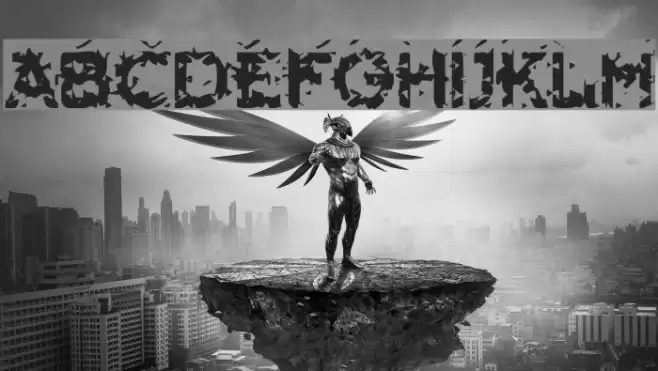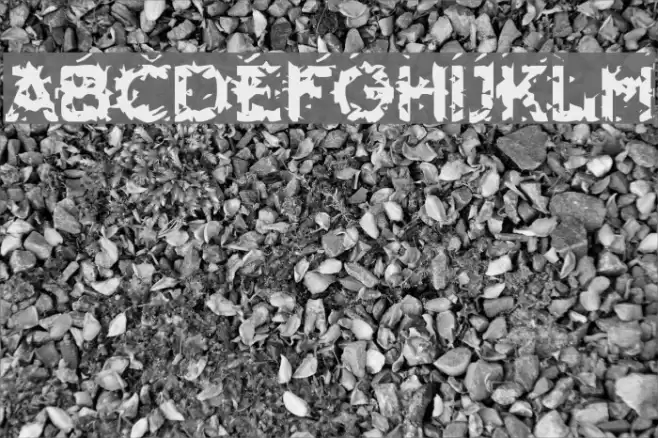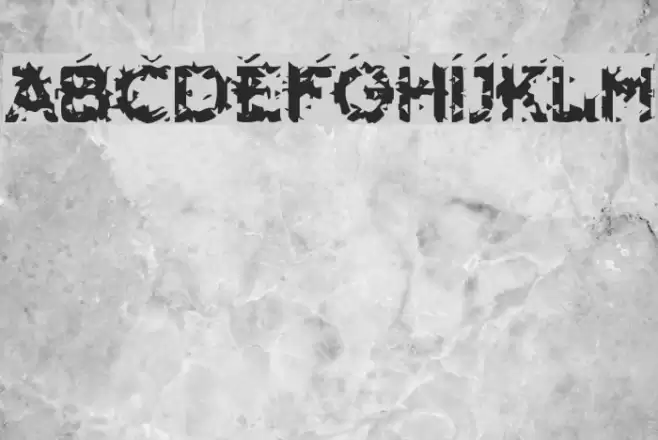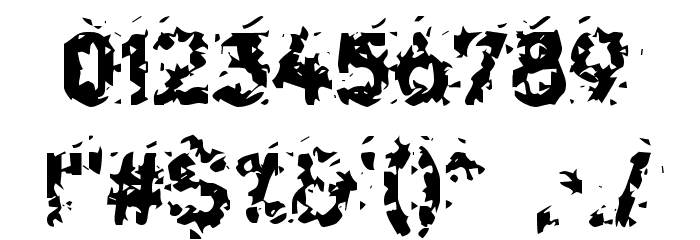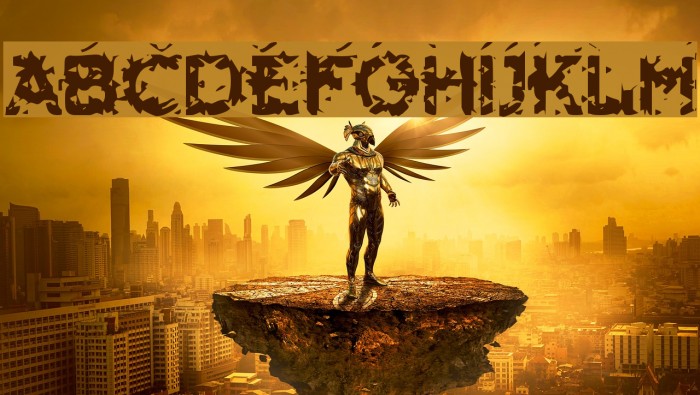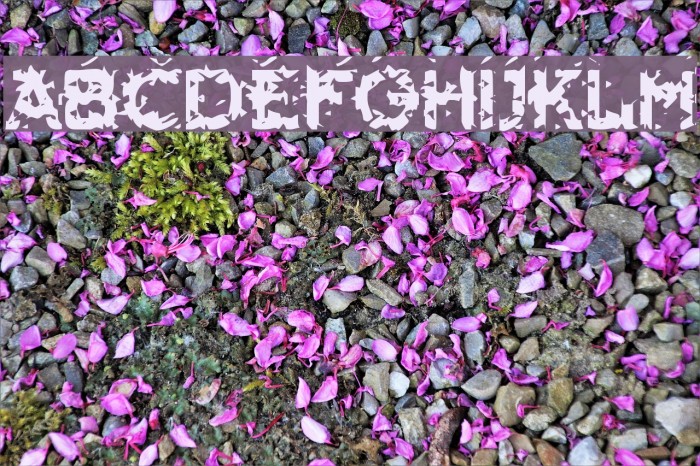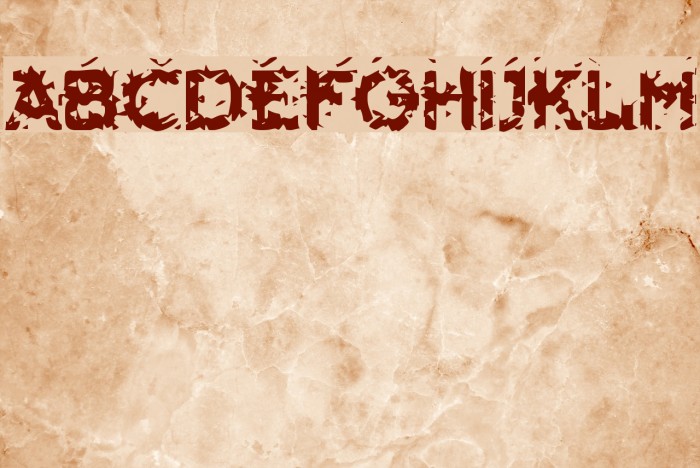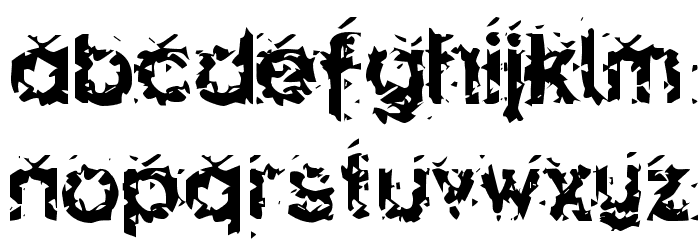
Hammeroid Font
Hammeroid Description
This font features a bold and aggressive design with a distressed, fragmented appearance. The characters are heavily stylized, giving an impression of being shattered or eroded, which adds a dynamic and edgy feel. The uppercase and lowercase letters maintain a consistent style, with sharp angles and irregular edges that create a sense of movement and chaos. The numerals and special characters follow the same design principles, ensuring uniformity across the typeface. This font is ideal for projects that require a strong visual impact and a sense of ruggedness or rebellion.
A bold, distressed font with a fragmented, edgy design from Decorative fonts.
- Proposed Projects: Album covers, posters, video game graphics, extreme sports branding.
- Overall Style: Modern, Edgy